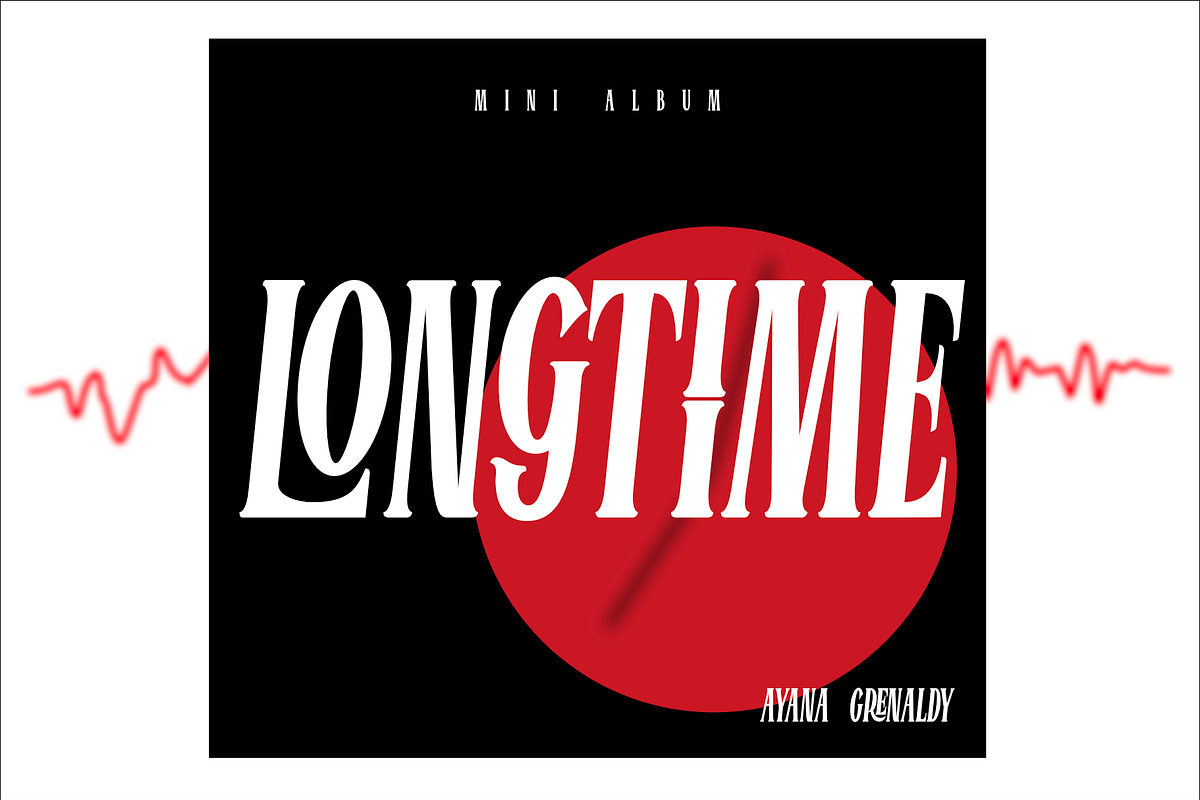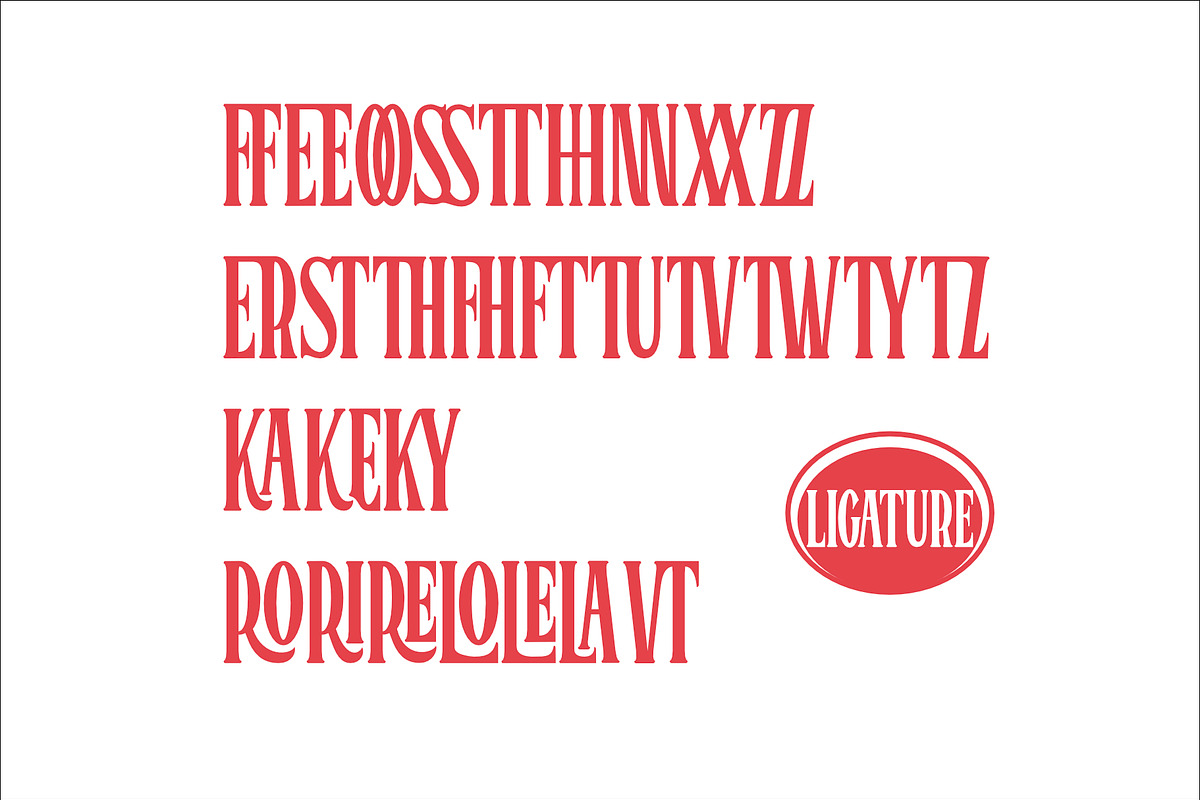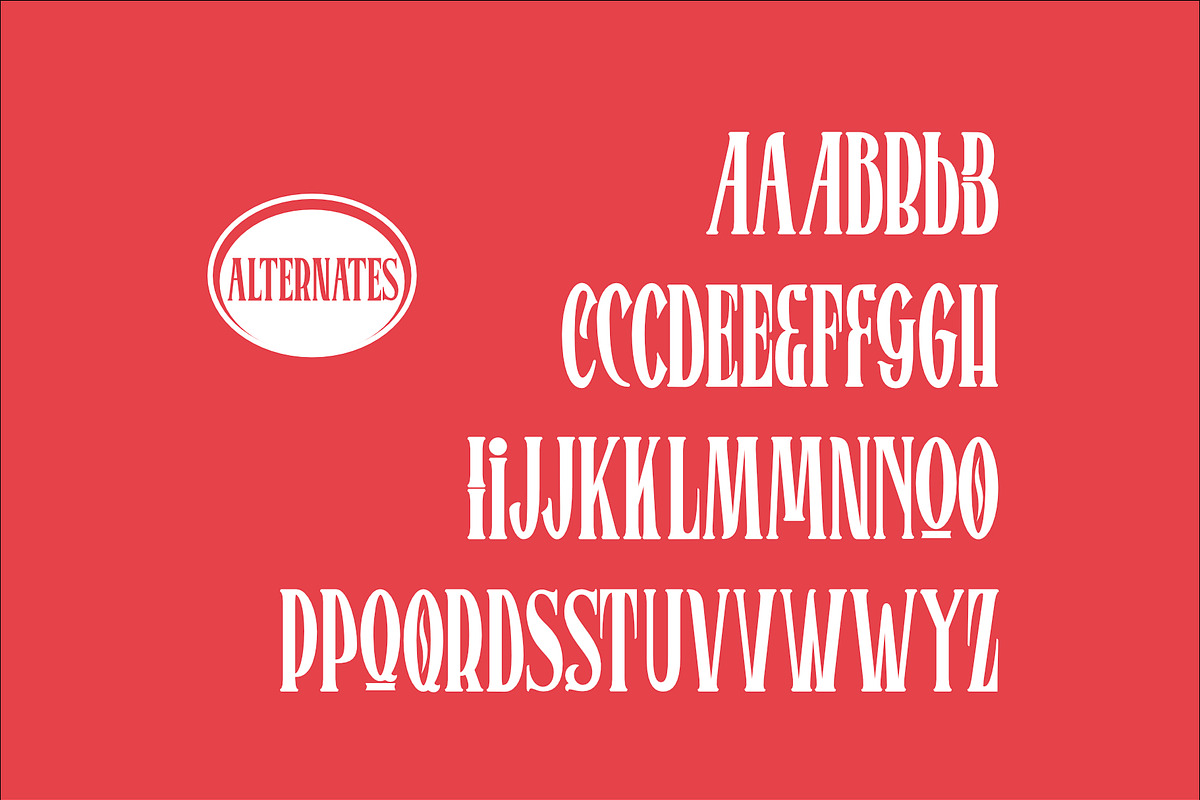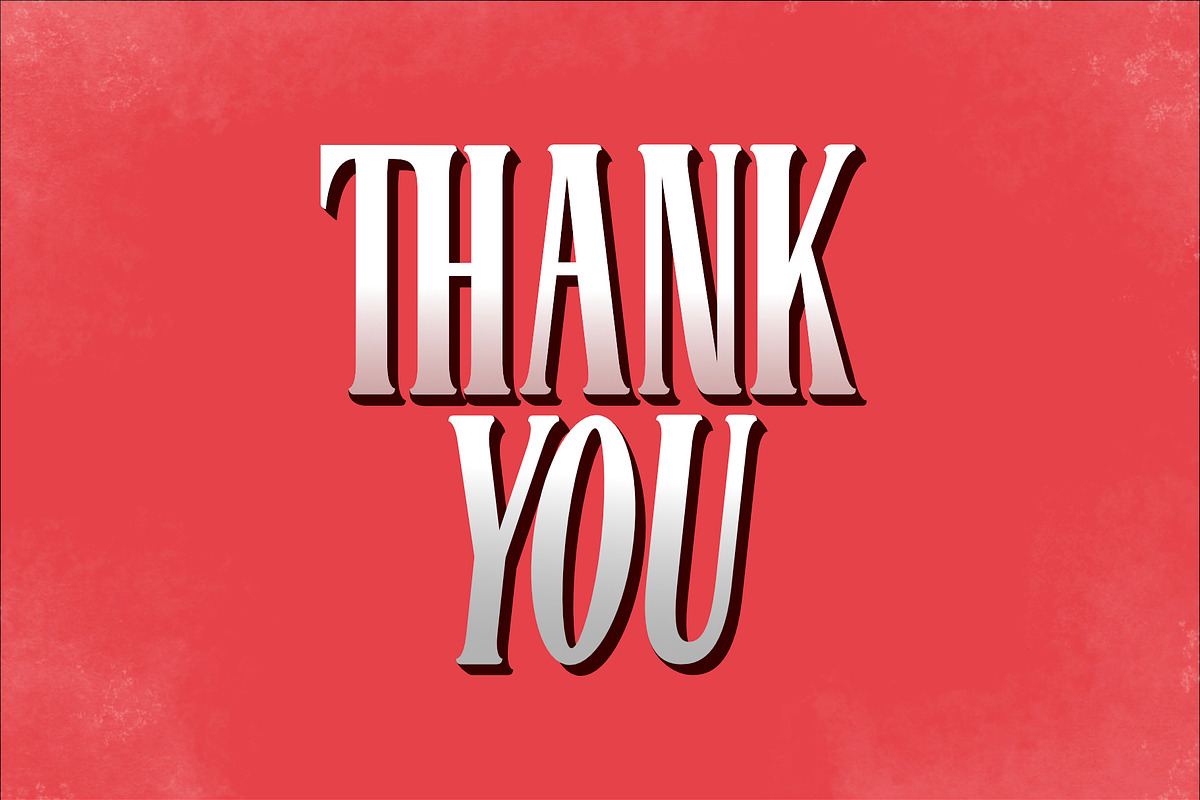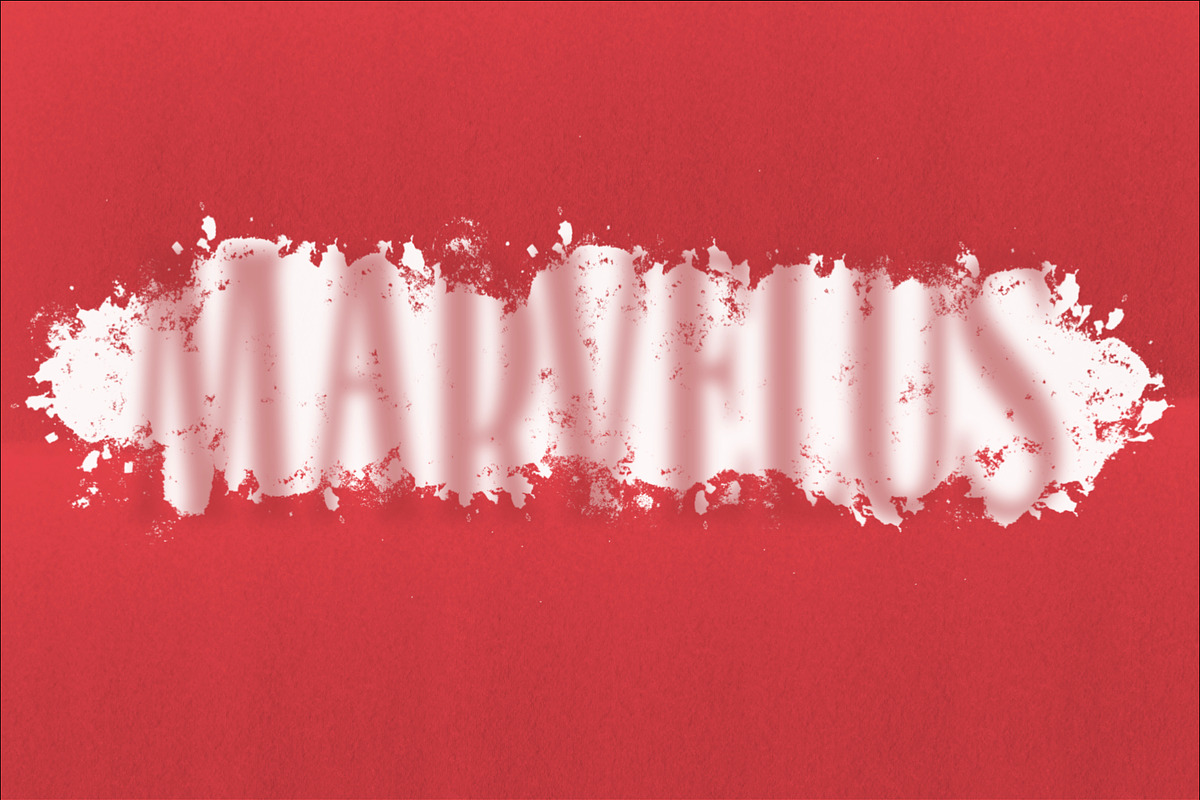
BROMTONE
Introducing BROMTONES, serif fonts with a high style that looks elegant, suitable for branding, T-shirts, Wedding Invitations, Classic Designs, Logos, etc. has two styles and has special ligature files and no, makes you even younger to explore this font. so what are you waiting for